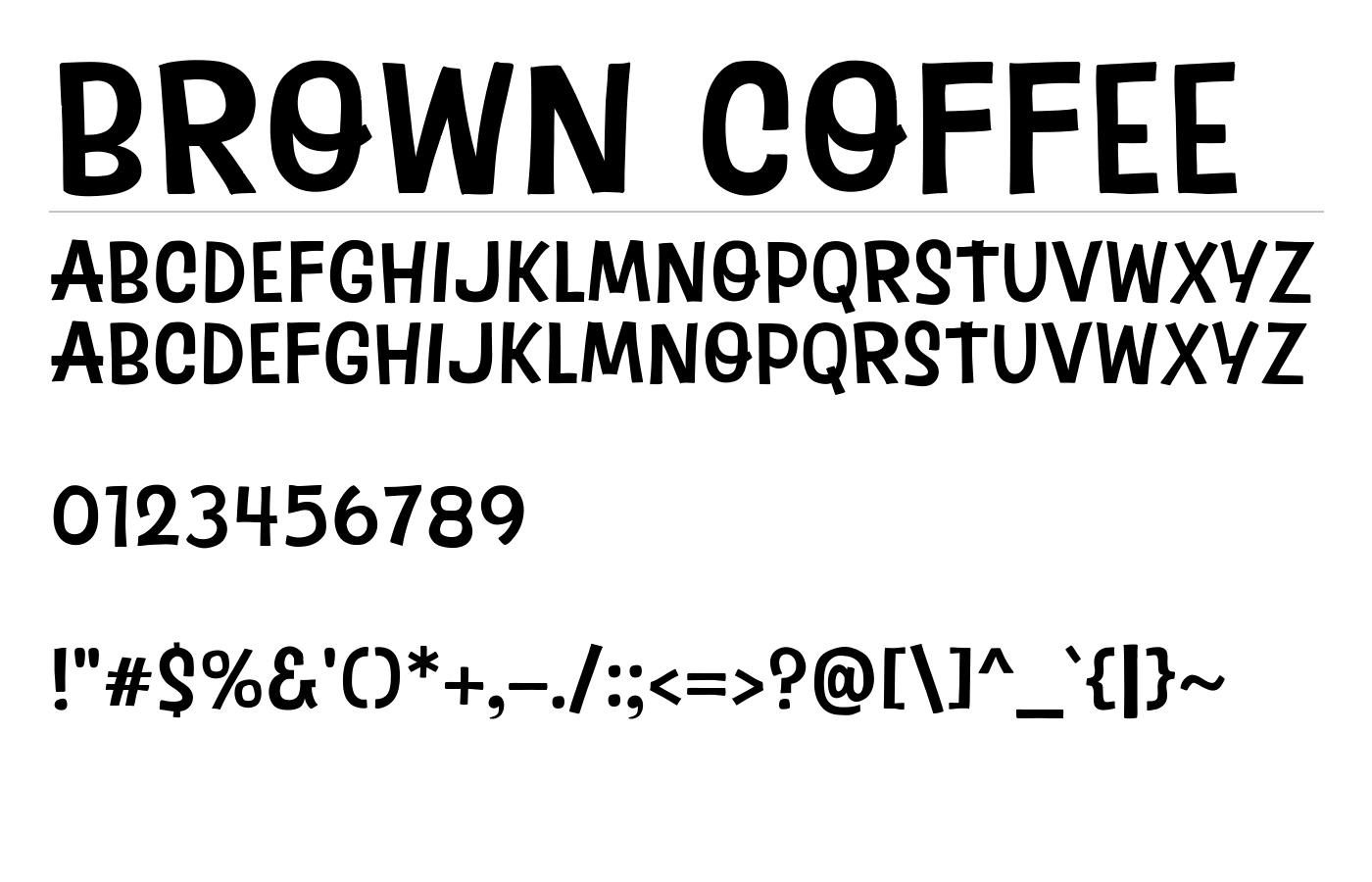
Brown Coffee Font is a playful and quirky sans serif typeface with a hand-drawn feel, featuring irregular strokes and slightly uneven letterforms that add personality and charm. Its medium weight and normal width combined with a lively, casual style make it perfect for fun branding, signage, or editorial projects that want to convey friendliness and approachability. This font works especially well in headlines and logos where a unique and informal vibe is desired.
Brown Coffee Font
About Brown Coffee Font